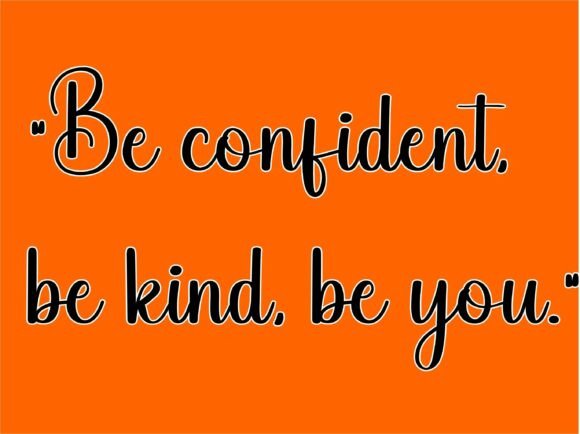
Meet Your New BFF: Barbie Font
Do you remember the excitement of rummaging through your mom’s old makeup bag, finding the perfect shade of pink lipstick, and feeling like the coolest kid on the block? That same feeling is exactly what designers can evoke with the Barbie Font, a display font that embodies the essence of girly charm and confidence.
The Barbie Font is a playful and stylish typeface designed to add a touch of youthful flair to any project. Whether you’re creating a fashion brand, beauty product packaging, or social media post, this font is sure to bring a smile to your audience’s faces. With its soft curves and bold personality, the Barbie Font is a valuable asset for designers looking to add a dash of fun and whimsy to their designs.
Barbie Font Key Features
- Font Family: A custom, cursive font designed specifically for the Barbie brand.
- Unique Characteristics: The font features a distinctive, flowing script style with rounded edges and a playful feel, making it ideal for use in branding and advertising.
Barbie Font Review
When I first laid eyes on the Barbie Font, I thought it was going to be a straightforward, playful typeface. And, in many ways, it is. Here are some things that work well:
- ✨ The rounded edges and gentle curves give it a soft, approachable feel that’s perfect for feminine or youthful branding.
- ✨ The font is highly legible, even at small sizes, making it a great choice for body text or headlines.
- ✨ The font’s subtle, elegant vibe makes it a great fit for fashion or beauty brands.
- ⚠️ The font may come across as too sweet or childish for some brands, which could limit its versatility.
- ⚠️ The font’s rounded edges can make it difficult to read at very large sizes or in bold weights.
Overall, I think the Barbie Font is a solid choice for brands that want to convey a sense of femininity and approachability. While it may not be the most versatile font, it’s a great fit for certain niches and can add a touch of elegance to a brand’s visual identity.
Use the Barbie Font to add a touch of whimsy and playfulness to your designs. It pairs well with bright colors and bold graphics. Experiment with different font sizes and styles to create visual interest.
The Barbie Font is commonly used for children’s products, fashion designs, and lifestyle brands. It’s also a great choice for social media graphics, party invitations, and promotional materials.